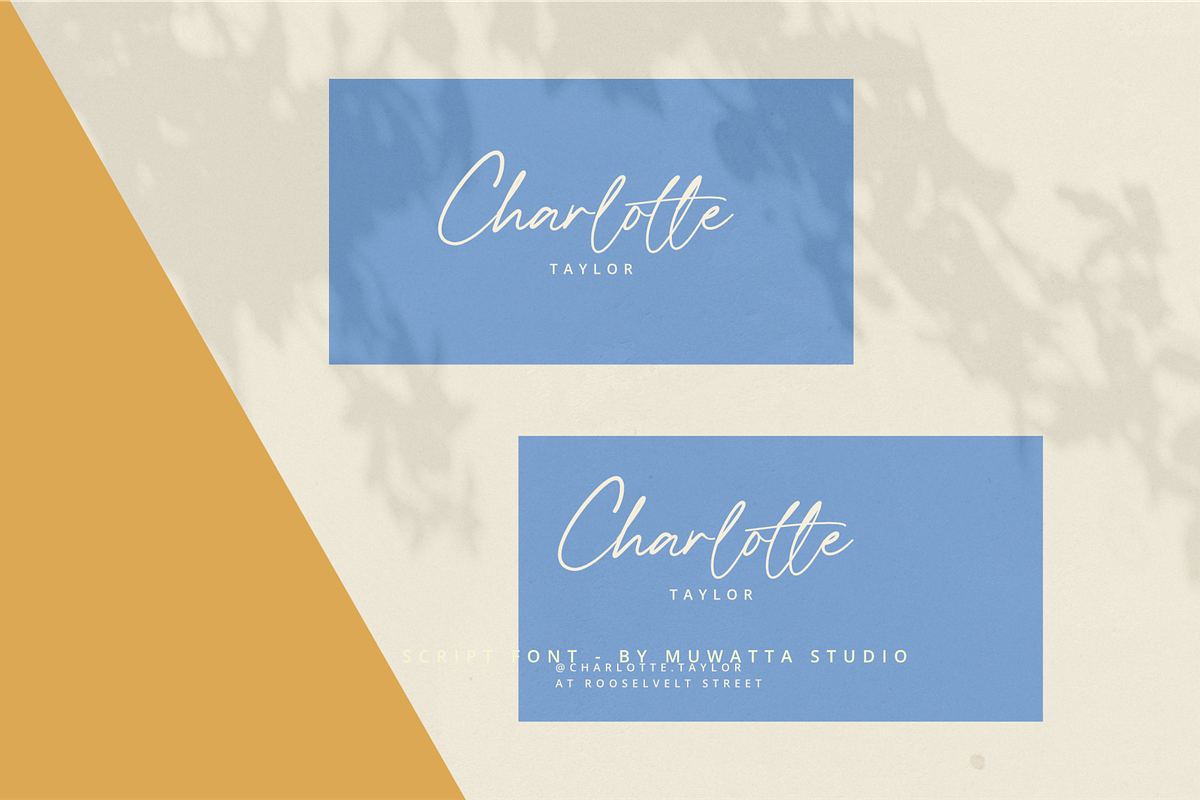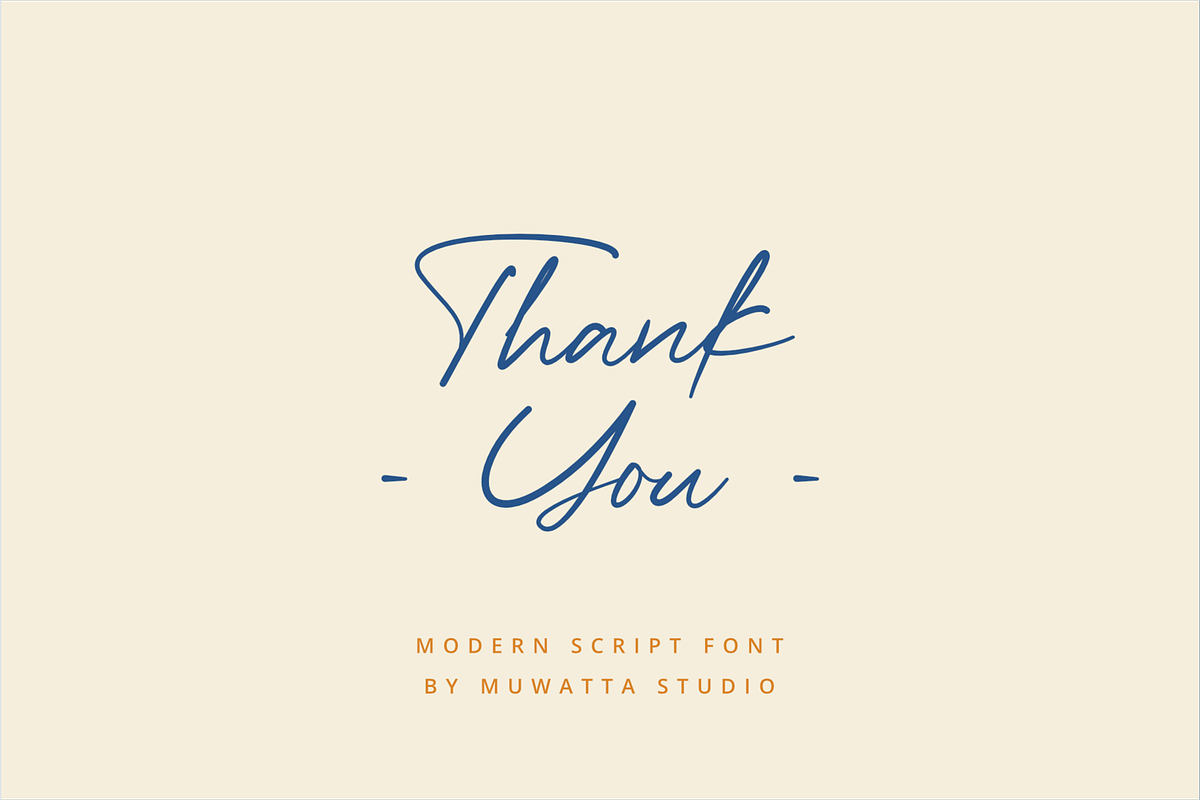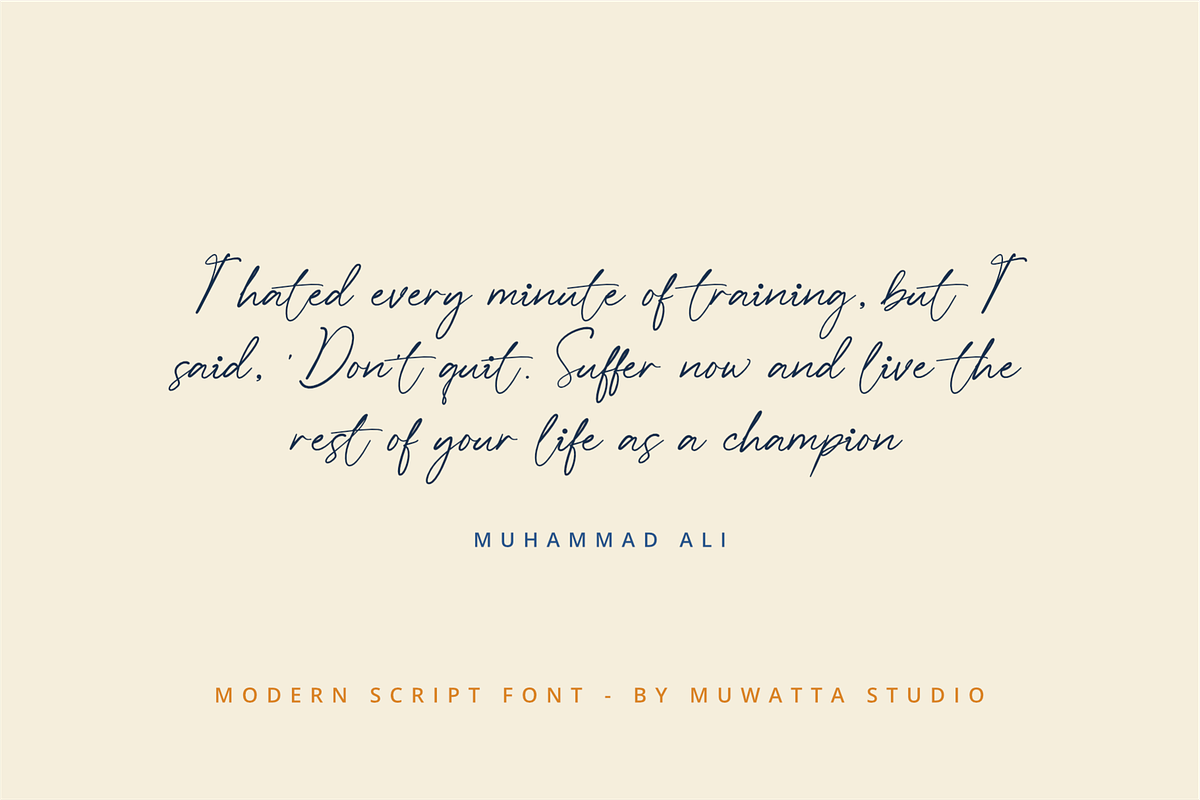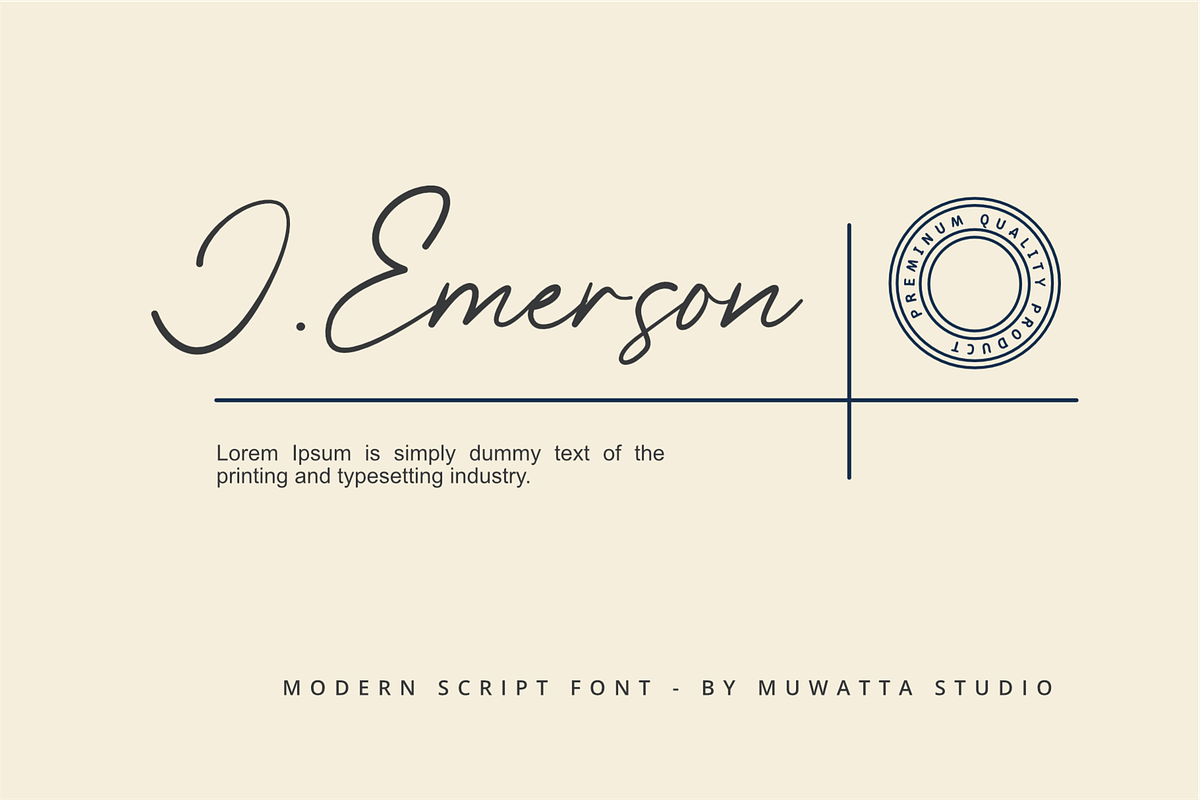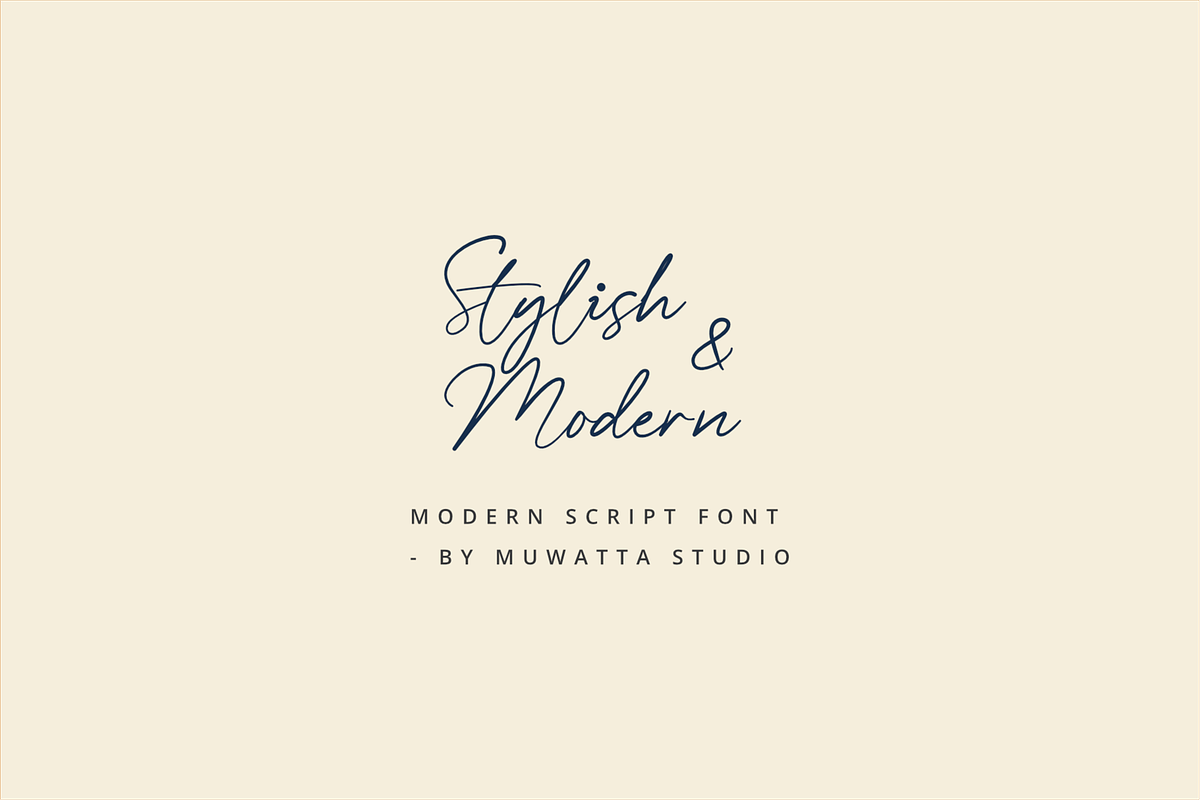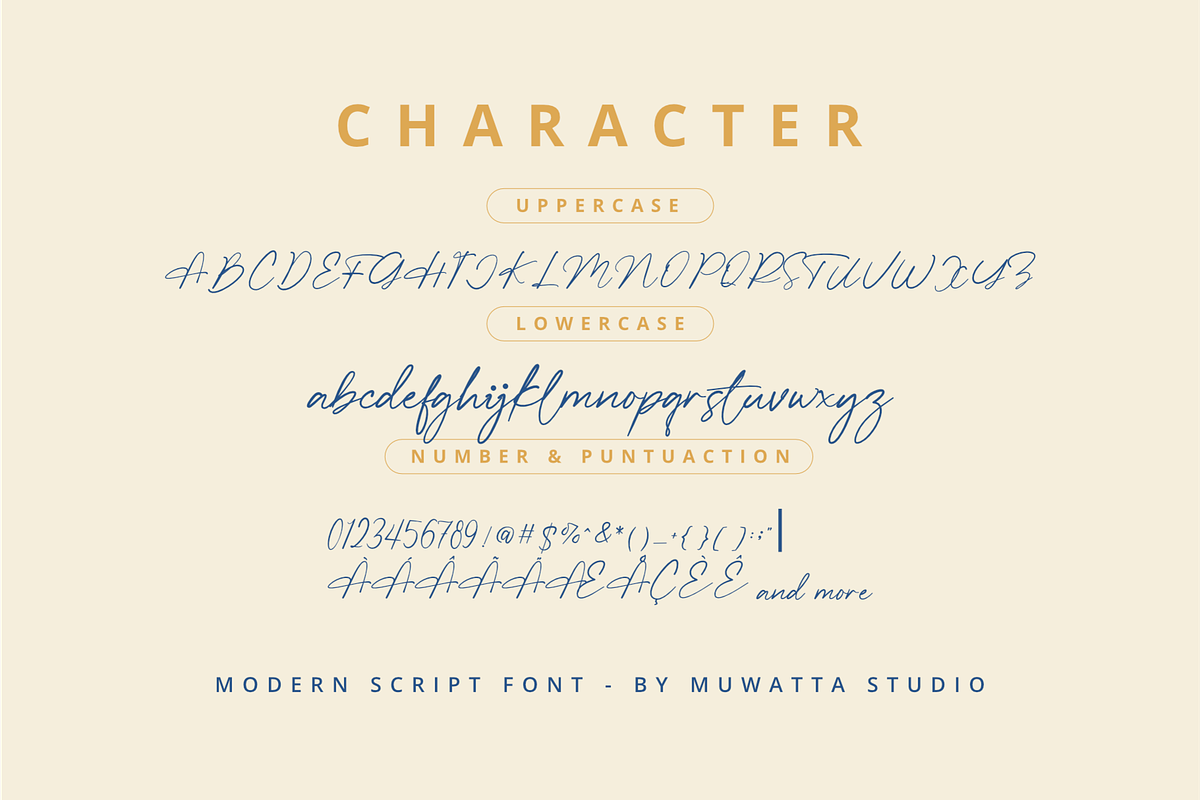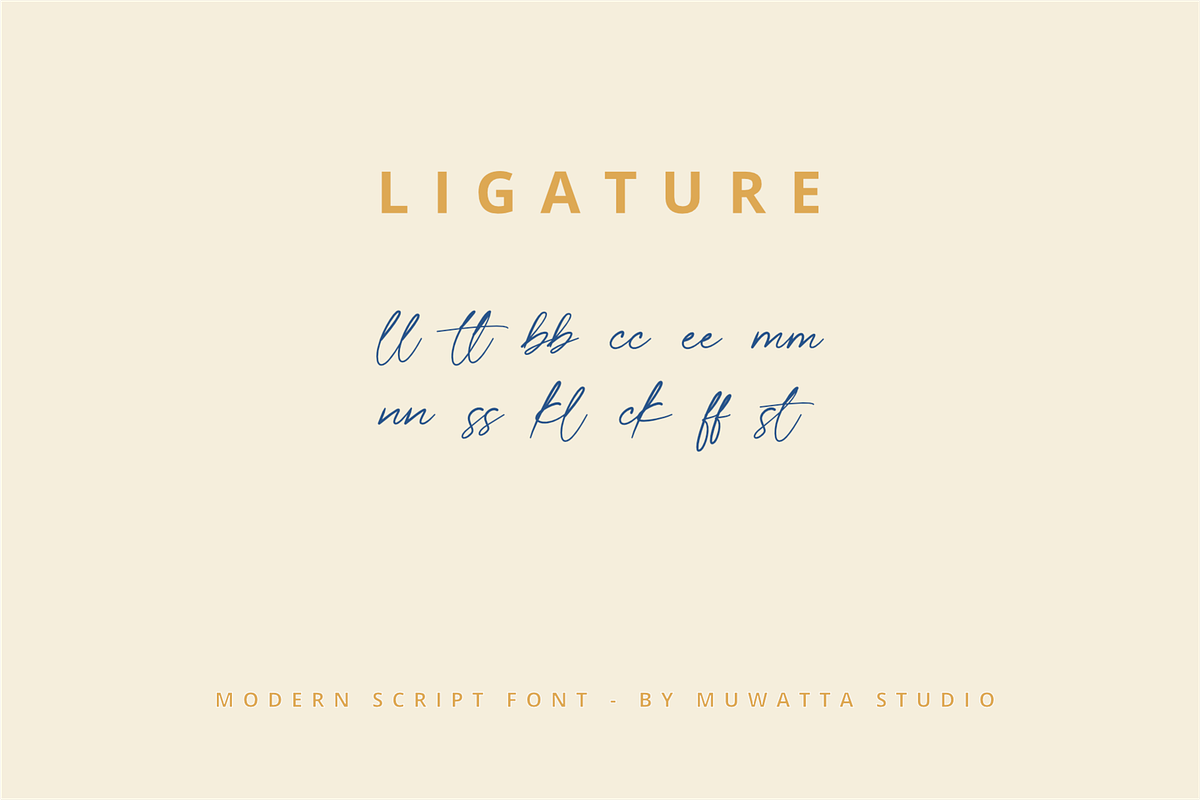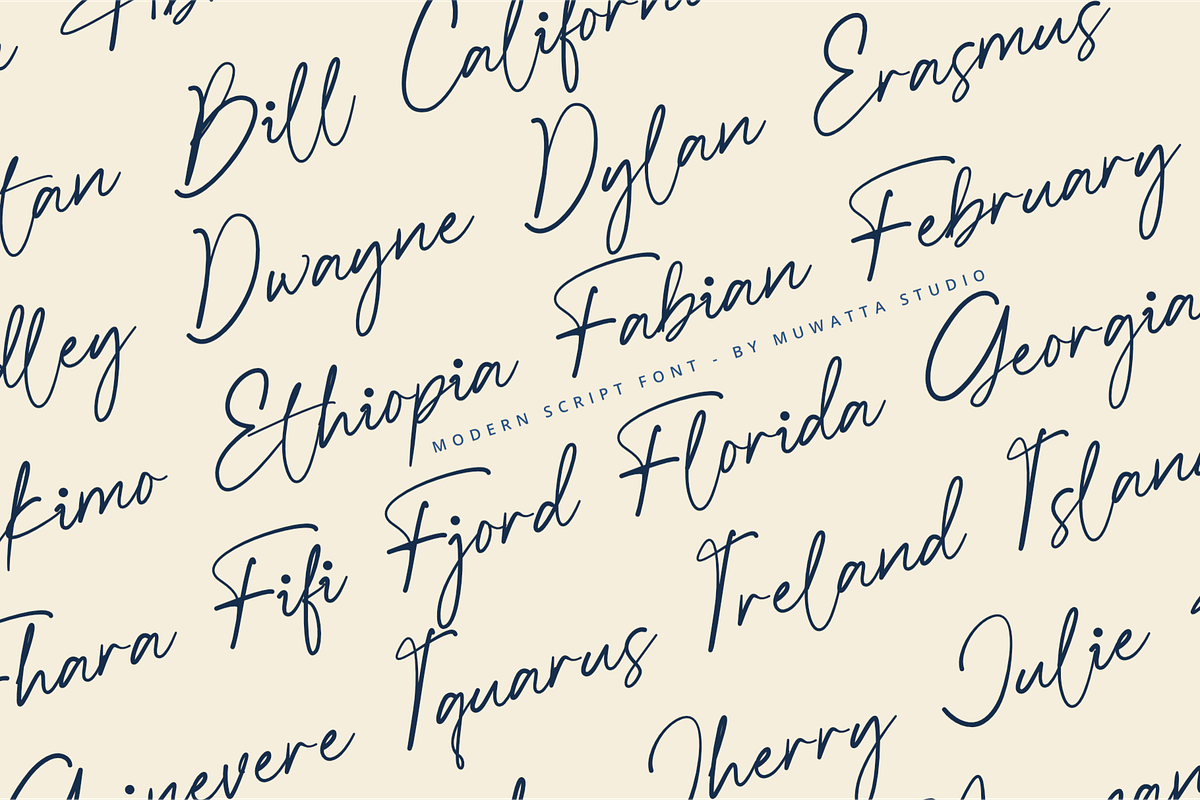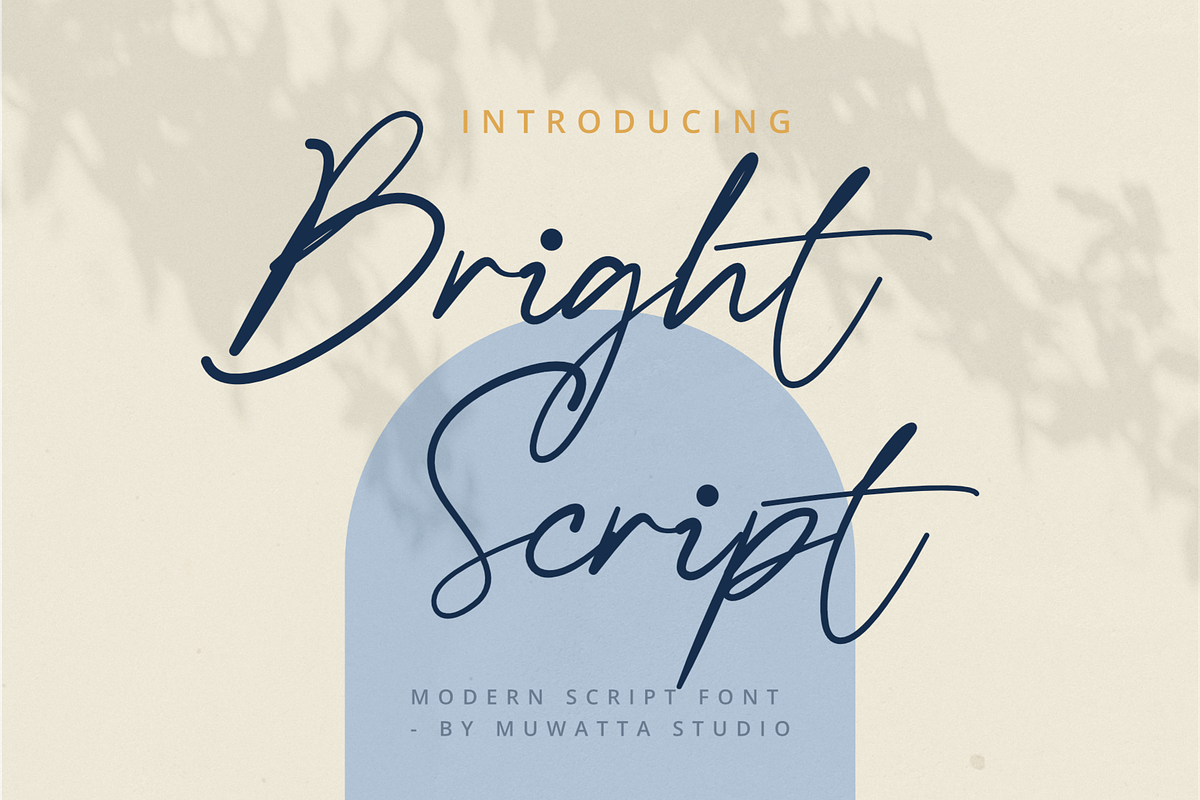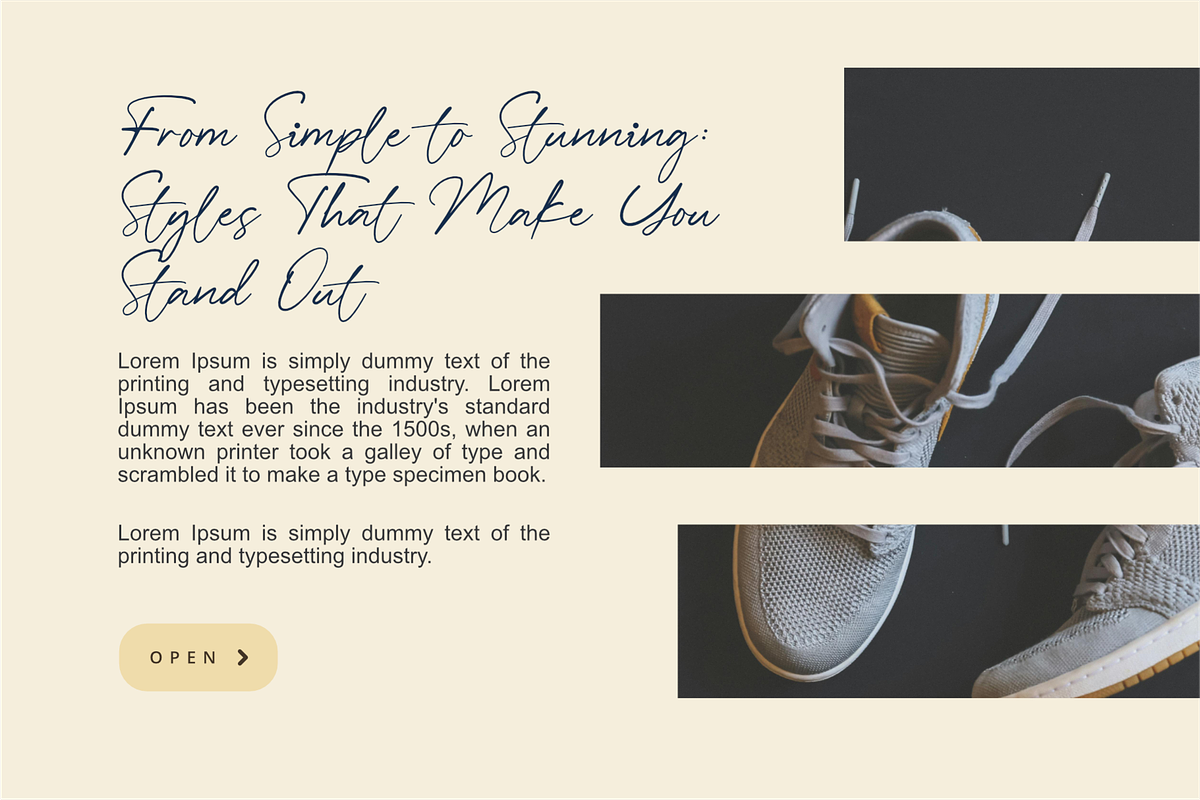
Bright Script
Bright Script is a handwritten script font that combines an elegant, personal, and modern feel. Specially designed for designers, content creators, and brand owners who want to bring a warm and professional touch to every visual work they create.
With smooth curves and natural characters, Bright Script is perfect for use in various purposes such as logos, invitations, branding, packaging, motivational quotes, and social media content. Each letter is designed to look like real handwriting, but remains easy to read and visually balanced.
-Full alphabet with Uppercase and Lowercase A-Z for script
-Numbers for all fonts
-Punctuation and symbols for all fonts
-Ligature Lowercase script
-Multilingual support all fonts